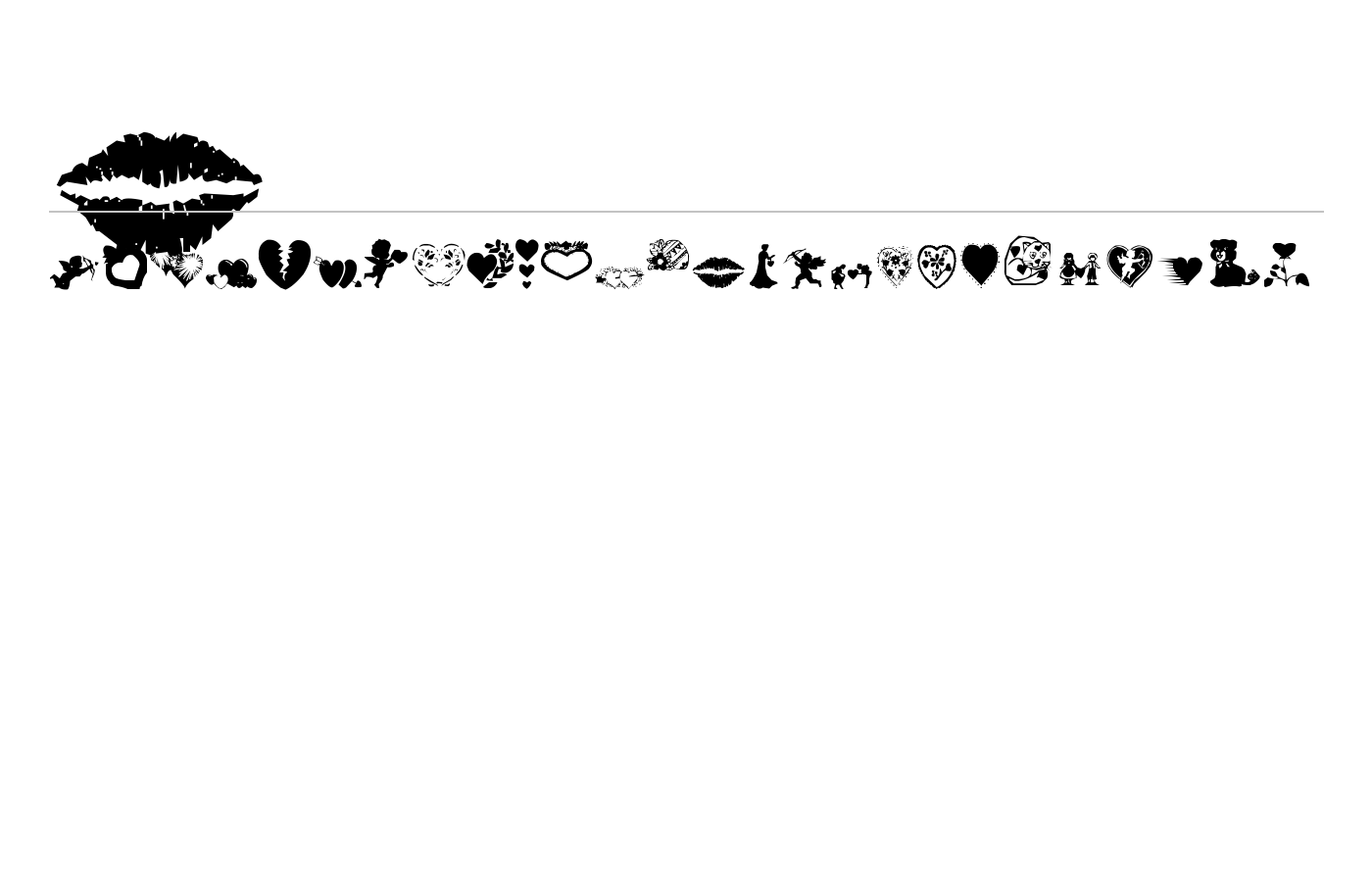
AOS Valentine is a decorative dingbat font filled with charming love-themed icons such as hearts, cupids, roses, and romantic silhouettes. Its bold, solid shapes make it perfect for adding a playful and affectionate touch to greeting cards, invitations, and Valentine’s Day designs. This font is ideal for creative projects seeking a whimsical, romantic vibe rather than traditional text use.
AOS Valentine Font